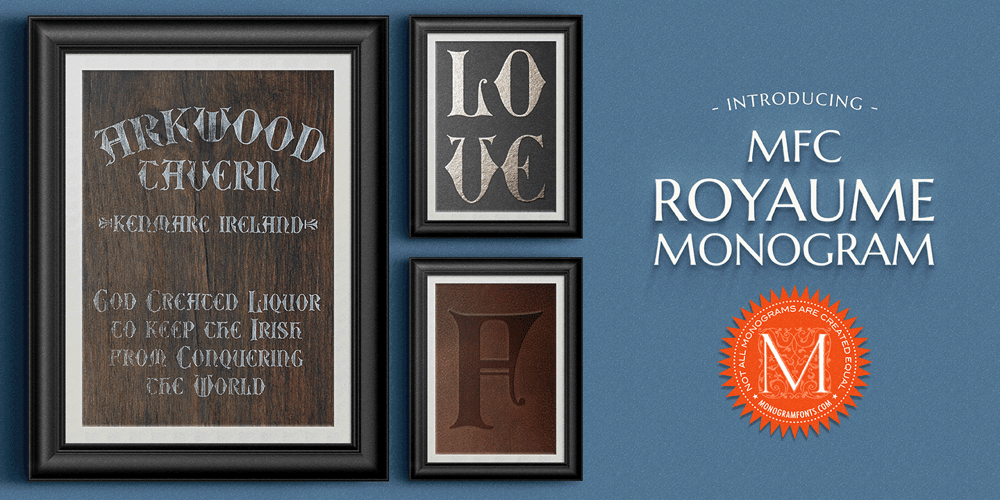
MFC Royaume Monogram Font Family was designed by Brian J. Bonislawsky and published by Monogram Fonts Co.. MFC Royaume Monogram contains 13 styles and family package options. The inspiration source for Royaume Monogram is a decorative letterset (capitals only) from the 1884 Ames’ Guide to Self Instruction in Practical and Artistic Penmanship by Daniel T. Ames. The letterforms were labeled as “Medieval (Modified)”. This Medieval style monogram has been enhanced with a collection of ornate braces to accent your monogram settings. Royaume Monogram can create one, two, or three letter monograms as well as basic headline and titling settings. It was originally designed in a solid design style, but solid and outline versions have been created for more versatility and appeal. Download and view the MFC Royaume Monogram Guidebook if you would like to learn a little more. There is a guidebook for both the Pro and Standard fonts included in the font package. Royaume Monogram comes complete with both Pro and Standard format fonts. For those with programs that can take advantage of OpenType features, the Pro fonts are for you, but for others without the ability to use OpenType features, we’ve created separate fonts that make up the styles contained in the Pro font.